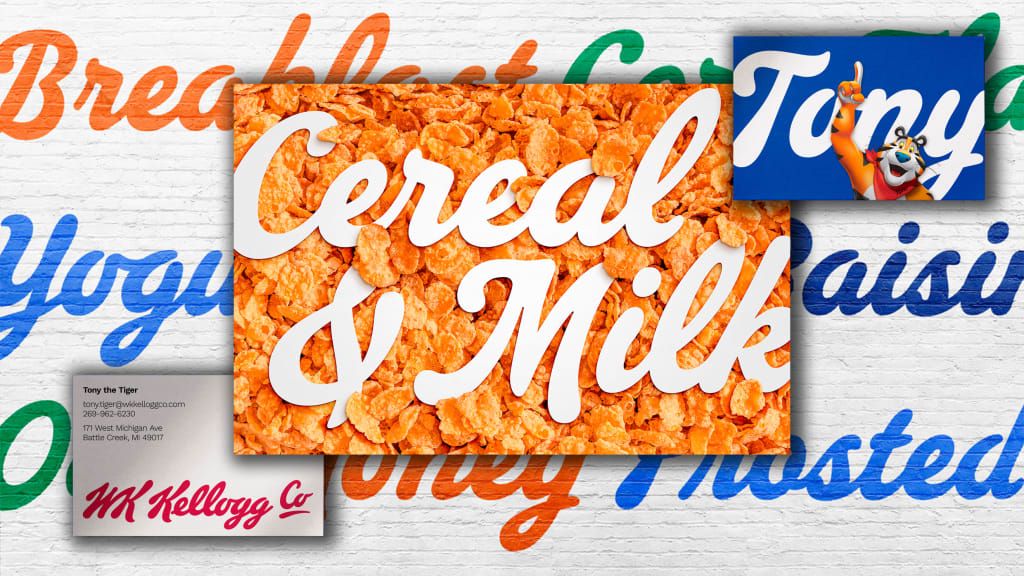
Kellogg's new custom typeface is a tasty new take on its classic logo. Here's an inside look at how it came to life
Type foundries XYZ and Plau expanded the iconic Kellogg's logo into a working type system. Here's how.